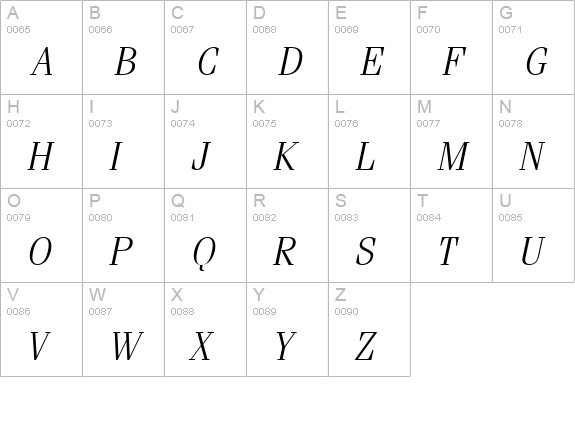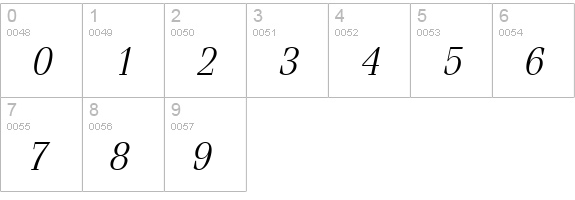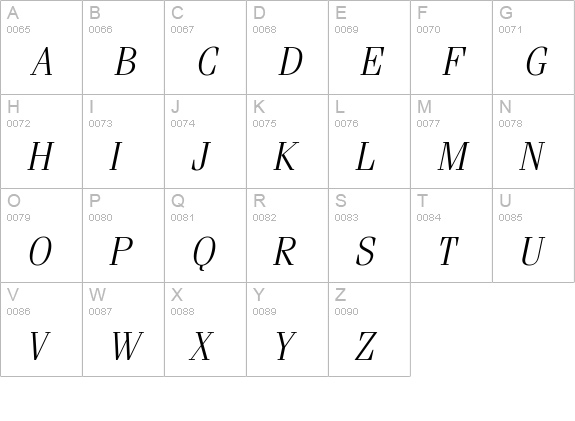
Compendium Light SSi Light Italic Font Details
Compendium Light SSi Light Italic is a refined, elegant, italic variant in the Compendium typeface family \xE2\x80\x94 well suited to elegant body text, refined sub-headings, and luxury branding.
Compendium Light SSi Light Italic is a sophisticated and elegant font that exudes a sense of modernity and style. Its sleek and refined design makes it perfect for adding a touch of sophistication to any project. The italic style adds a dynamic flair to the font, making it suitable for a wide range of applications. The best part about Compendium Light SSi Light Italic font is that it is completely free to download at FontsMarket.com. This means you can easily access this beautiful font and incorporate it into your design projects without any hassle. Whether you are working on a professional presentation, a creative poster, or a stylish website, this font will elevate your work and make it stand out. With its clean lines, balanced proportions, and graceful curves, Compendium Light SSi Light Italic font is sure to make a lasting impression. Download it for free today and add a touch of elegance to your next project.